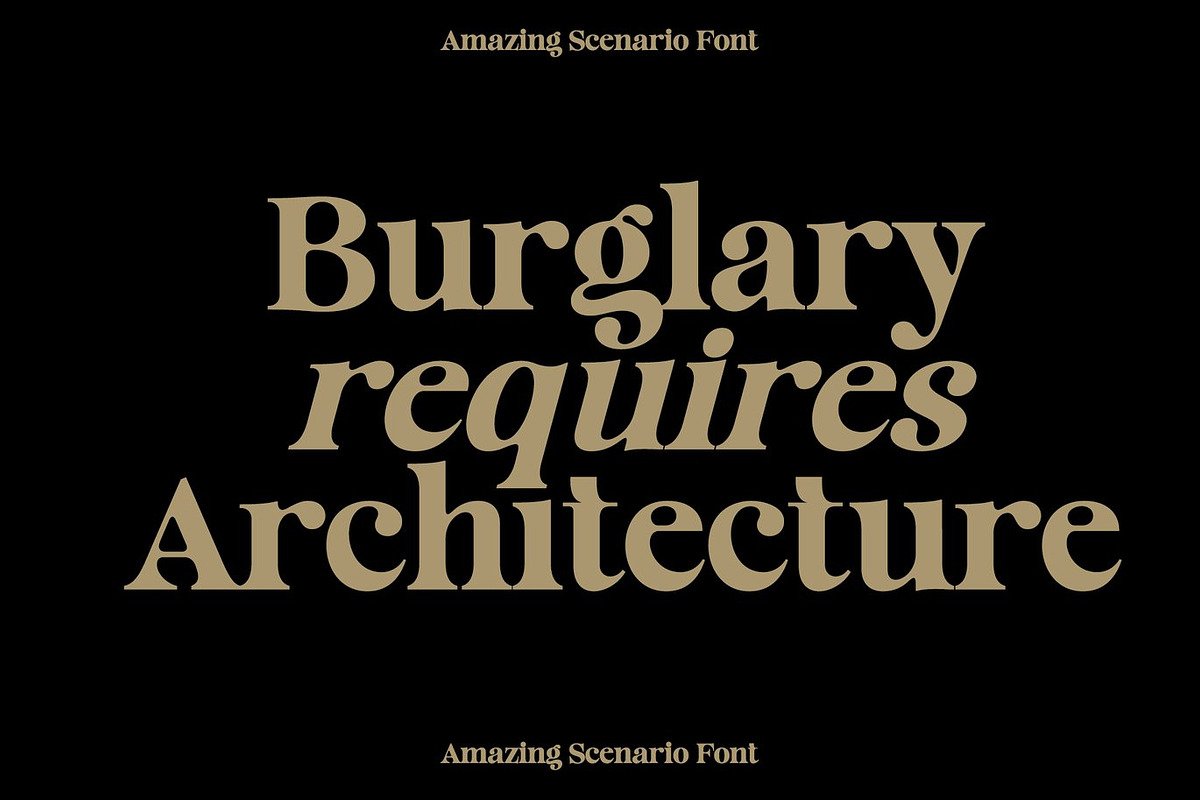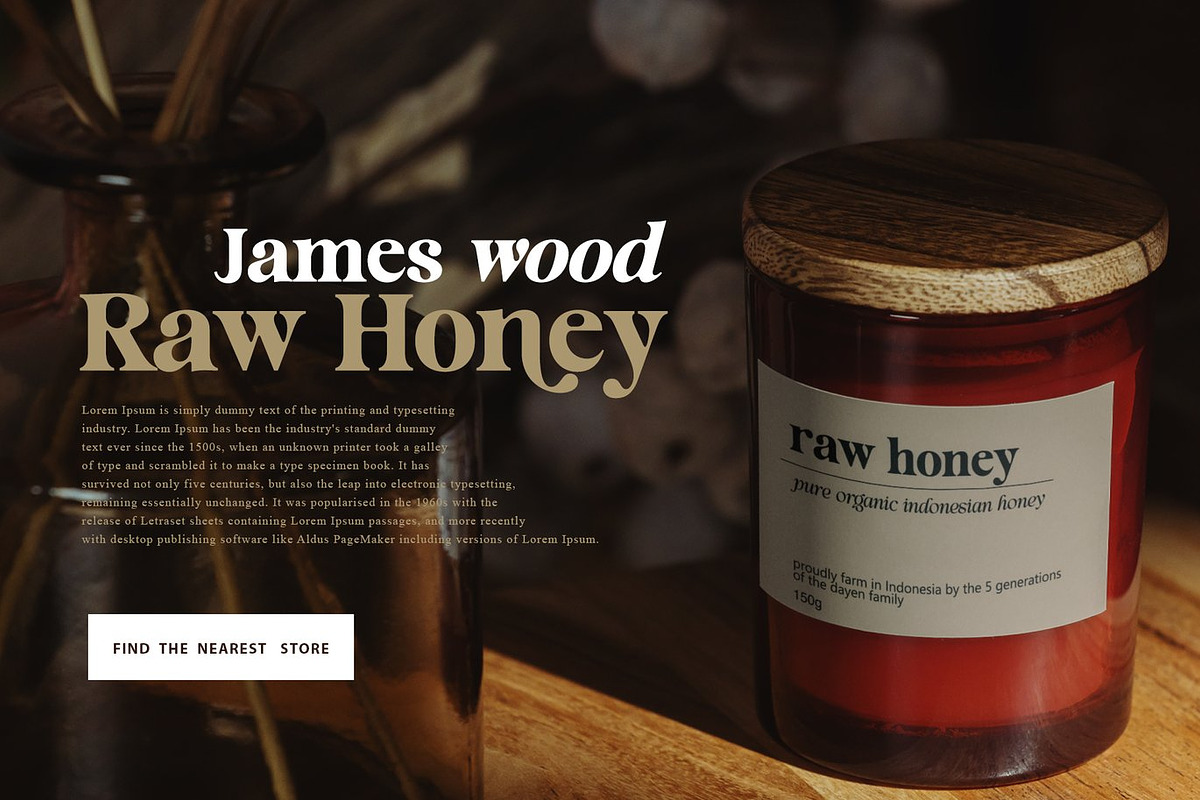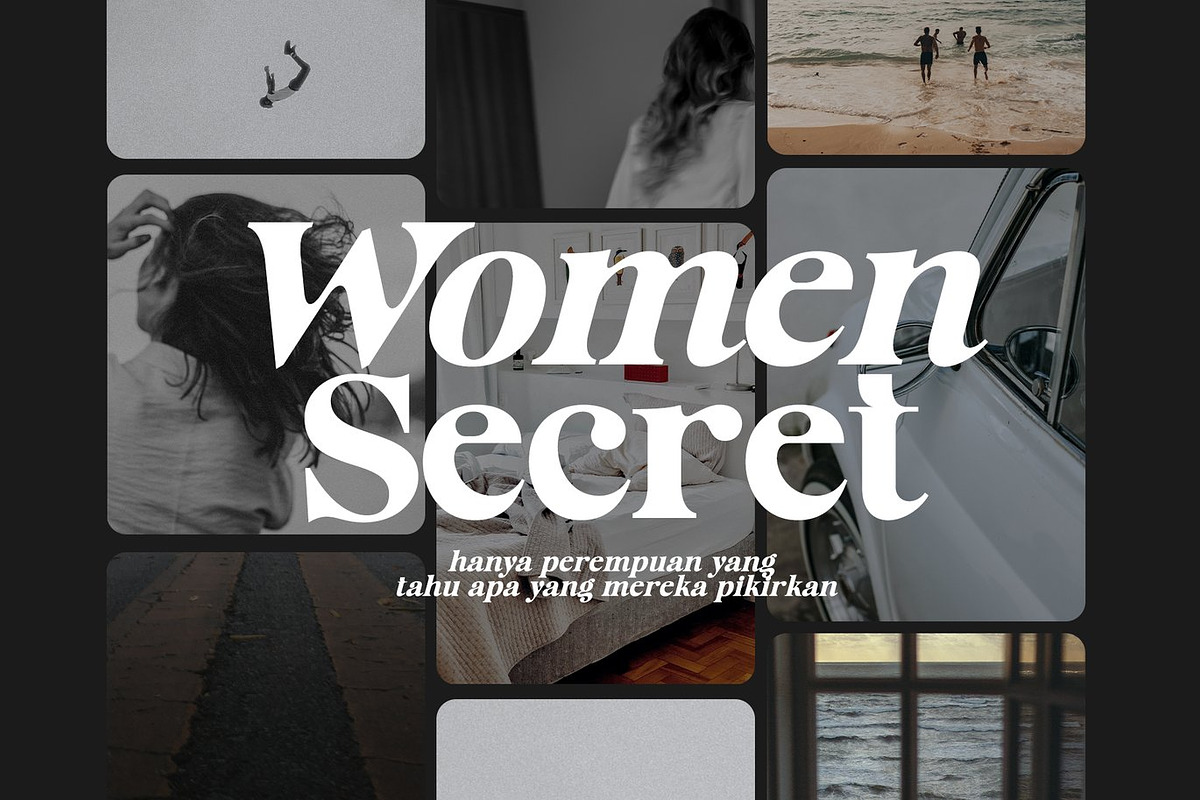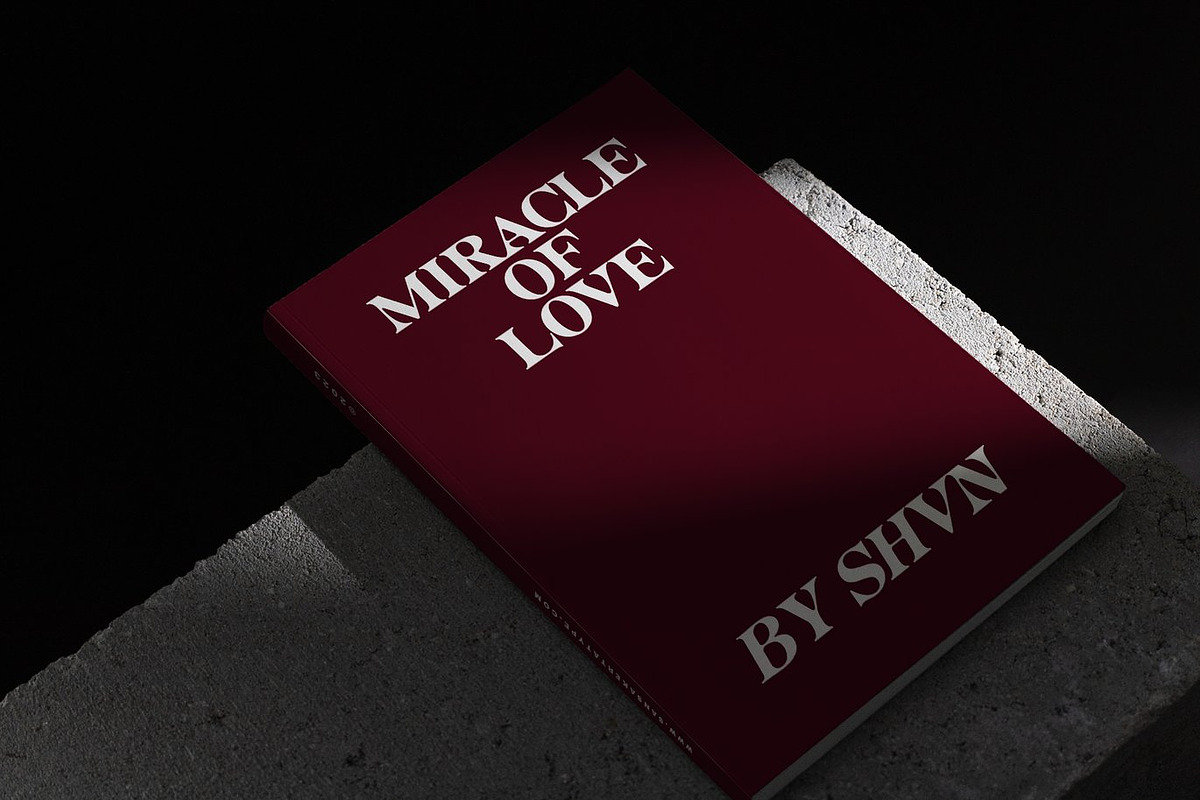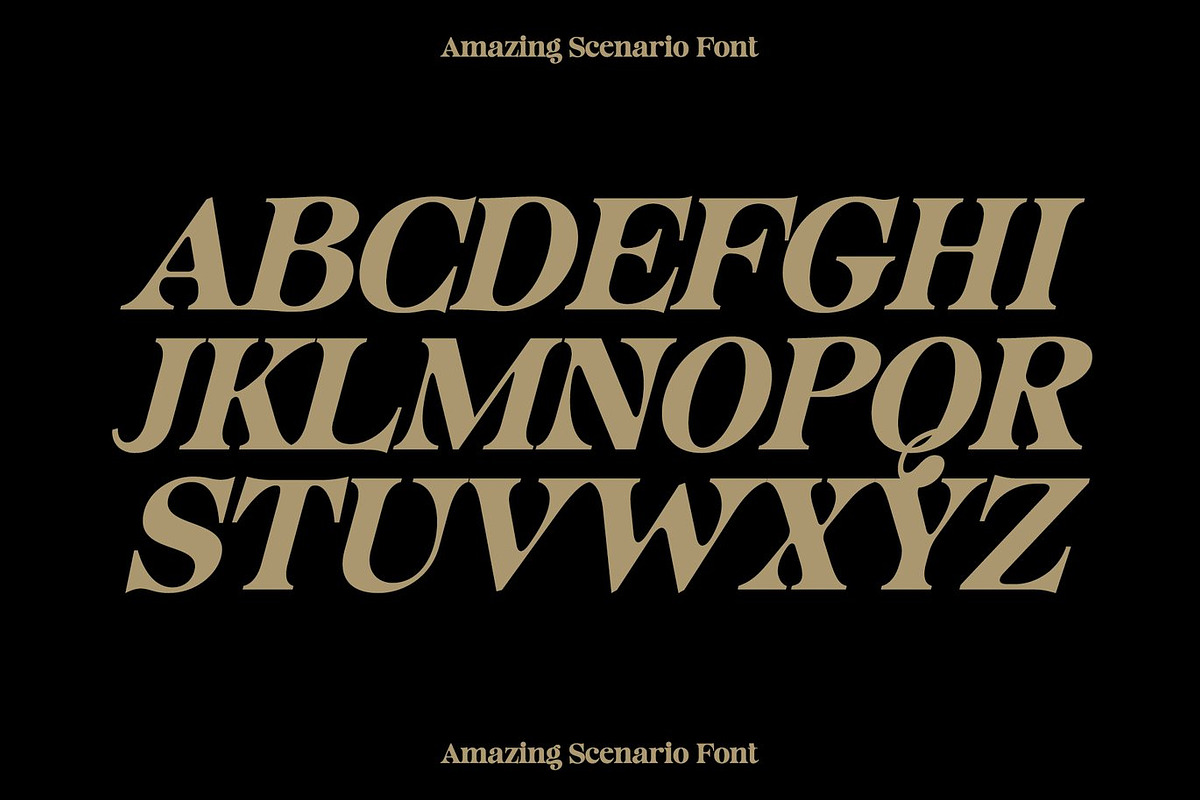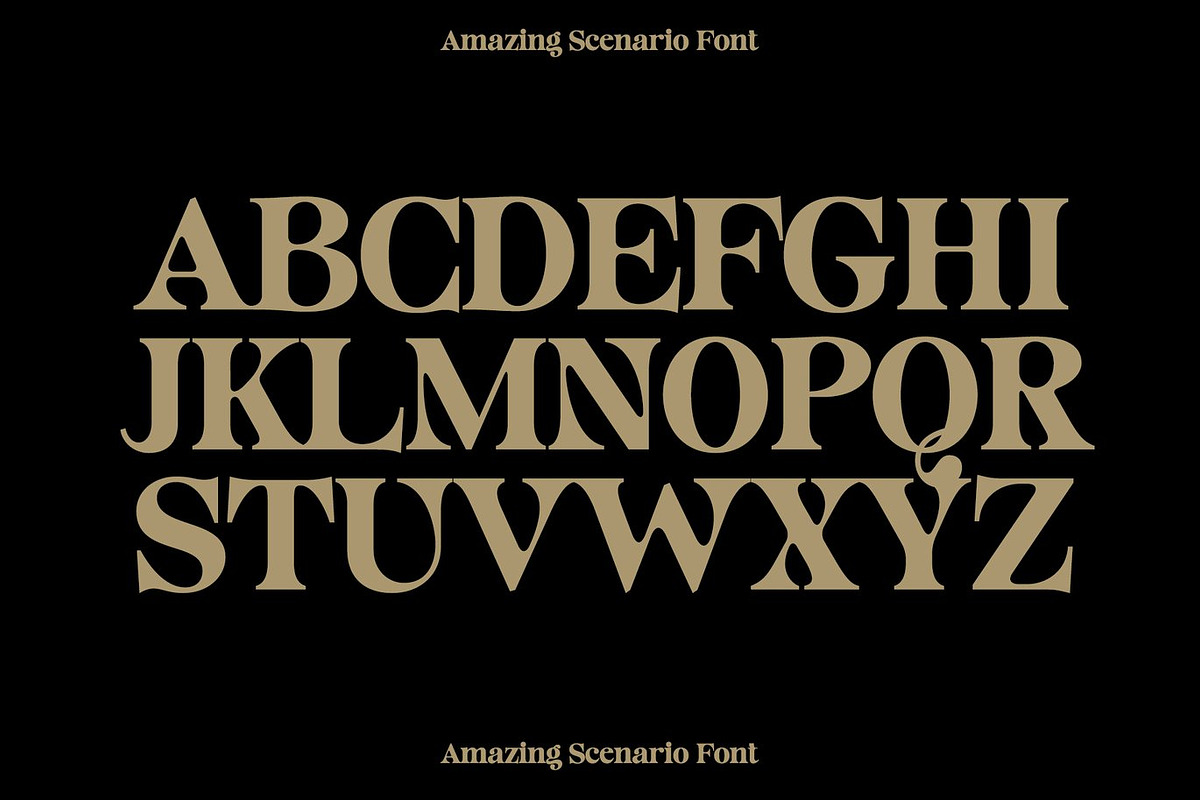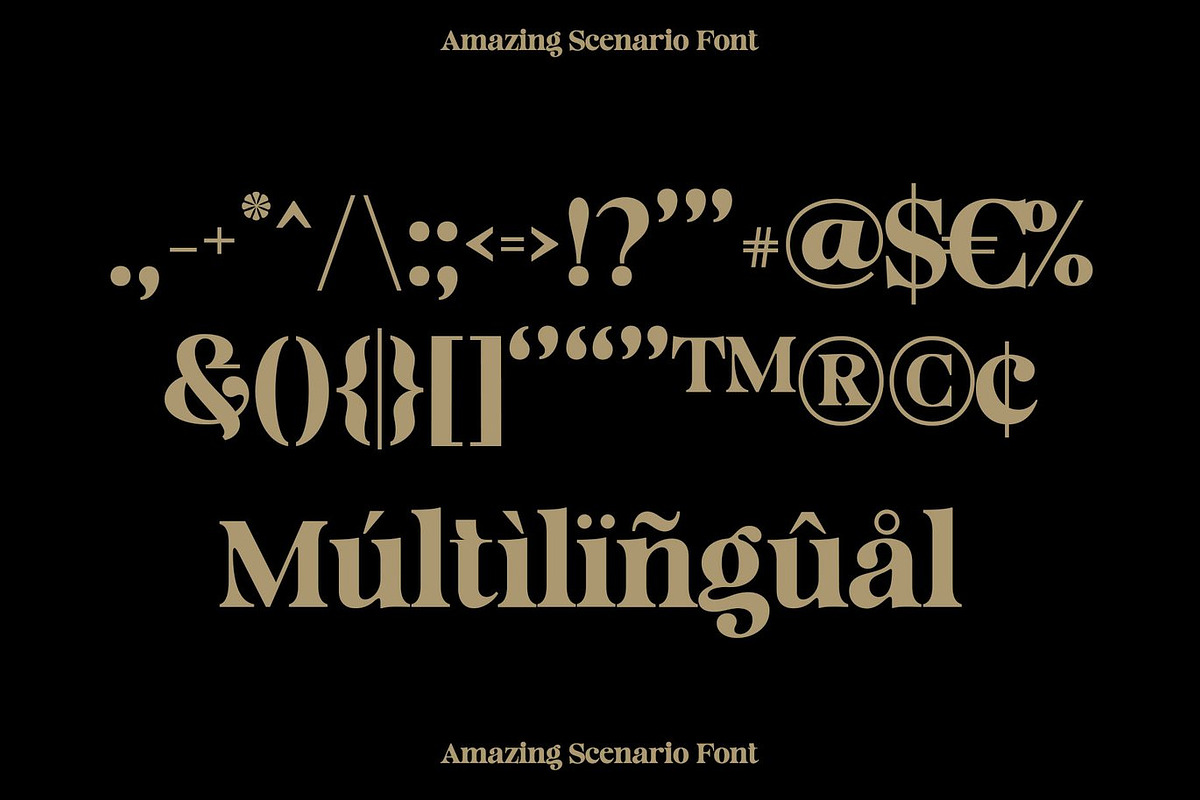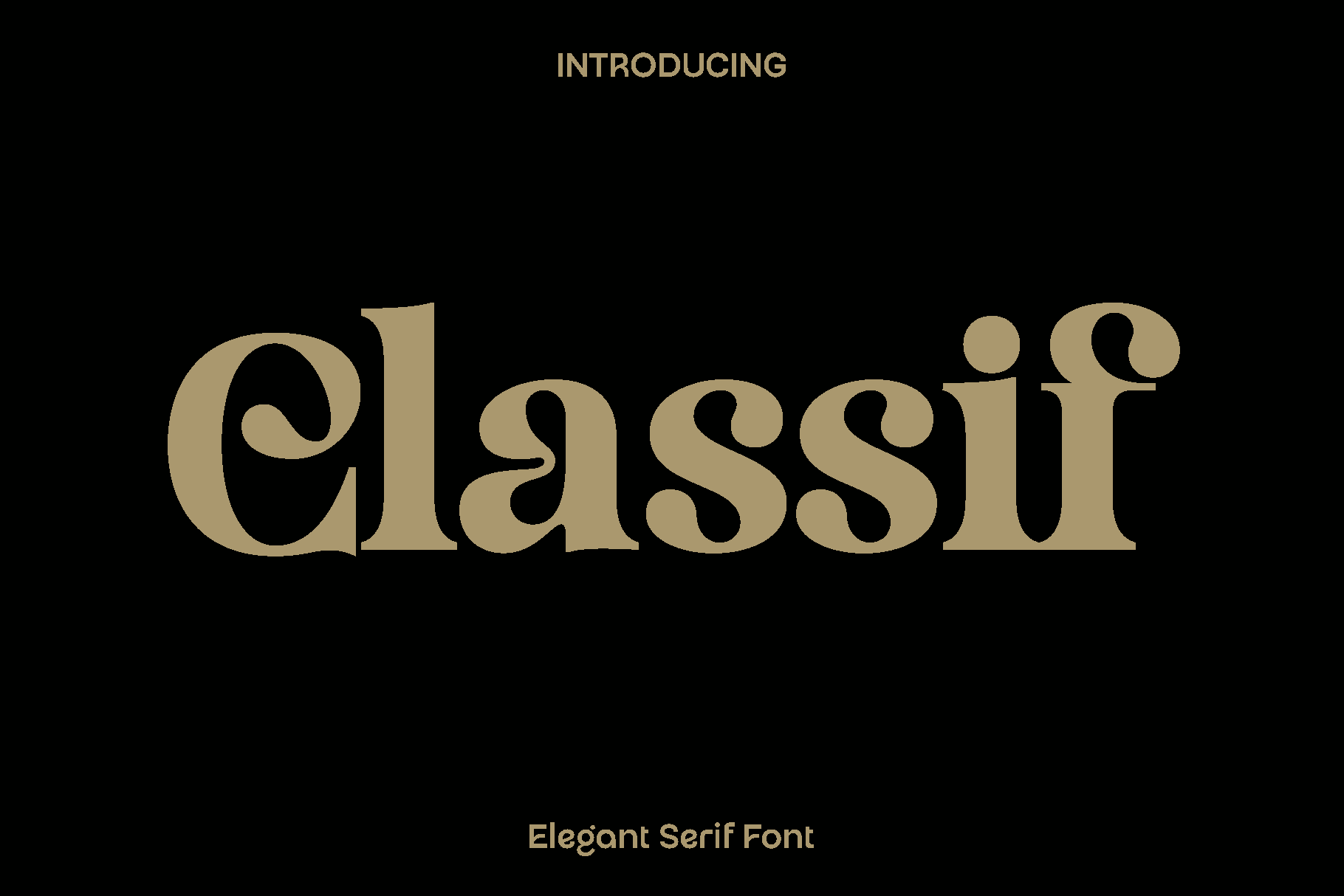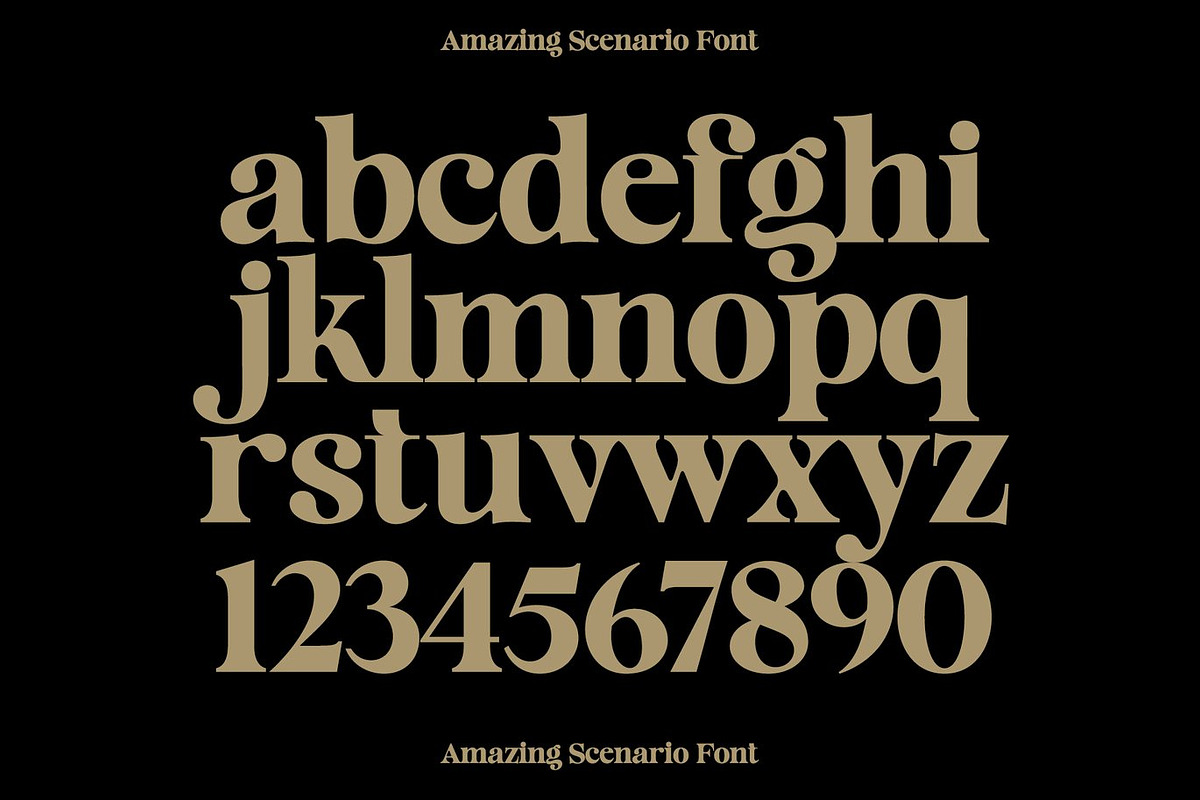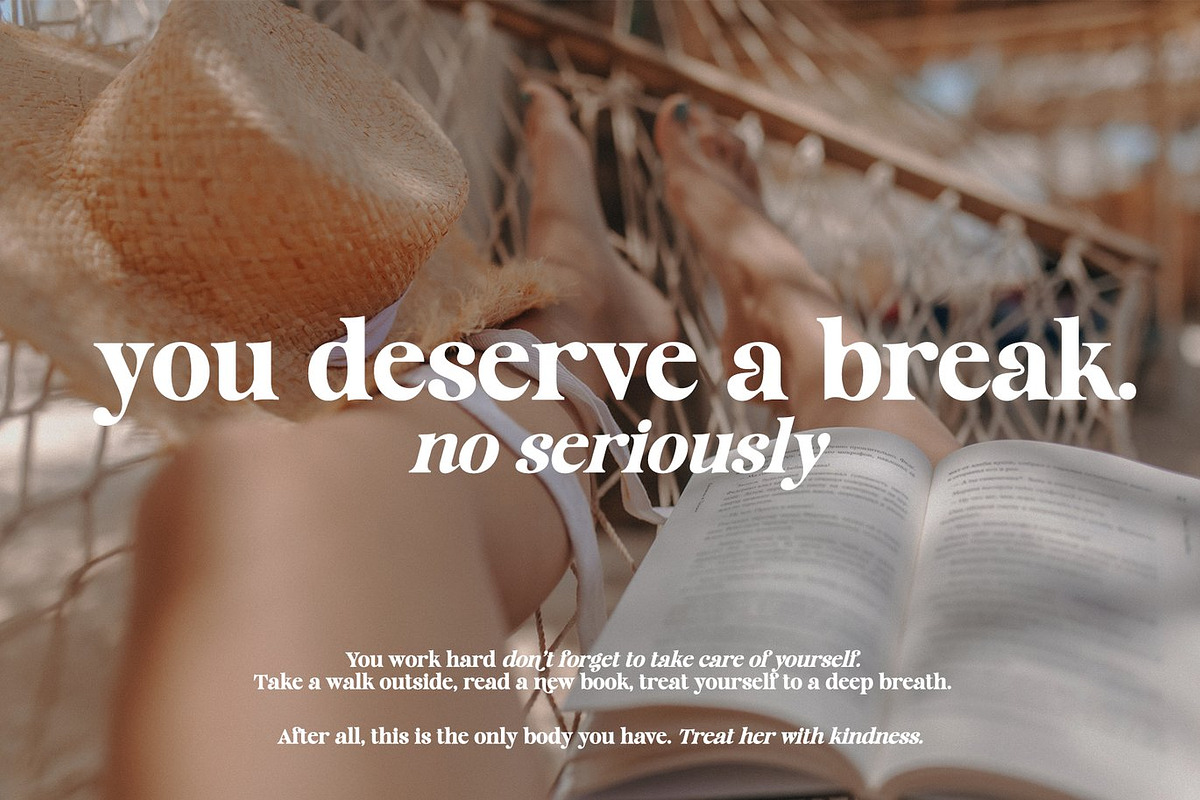
Classif - Elegant Serif Font
Classif is a bold and elegant typeface designed to blend modern clarity with timeless vintage charm. Inspired by classic typography and refined editorial styles, Classif carries a confident presence through its strong letterforms and smooth italic companion. Every character is carefully crafted to deliver balance, style, and personality, making this font feel both nostalgic and contemporary at the same time.
This font shines beautifully in branding and identity projects where elegance and strength are equally important. Classif is ideal for logo design, clothing and apparel branding, product packaging, magazine headers, posters, and sophisticated social media visuals. Its versatility allows it to perform exceptionally well in both large display settings and smaller text applications without losing readability or character.
Classif feels stylish, confident, and expressive. It brings a sense of heritage while staying relevant for modern design needs. Whether you are building a premium brand, creating editorial layouts, or adding a refined typographic overlay to imagery, Classif enhances your work with a polished and professional look that stands out.
With full language support, clean numerals, and well balanced punctuation, Classif is a dependable choice for designers who value flexibility and elegance in one complete font family.
Classif Font Features:
• Bold elegant modern vintage style
• Regular and italic styles included
• Uppercase and lowercase characters
• Numerals and punctuation
• Multilingual support